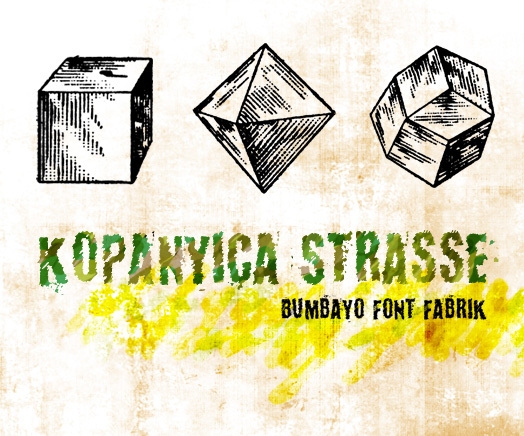
KopanyicaStrasse by Bumbayo of Bumbayo Font Fabrik is a free distressed brush font with forceful, upright capitals whose broad strokes are broken by uneven cuts. Its torn edges make every letter look hand-scraped.
Merchandise gives this lettering a natural home, especially punk shirts where its raw surface can echo roughly printed ink. It also suits gig posters, album artwork, and game graphics built around street culture or urban decay. On hot sauce or craft drink packaging, the battered forms can become a recognizable brand mark rather than simple product lettering.